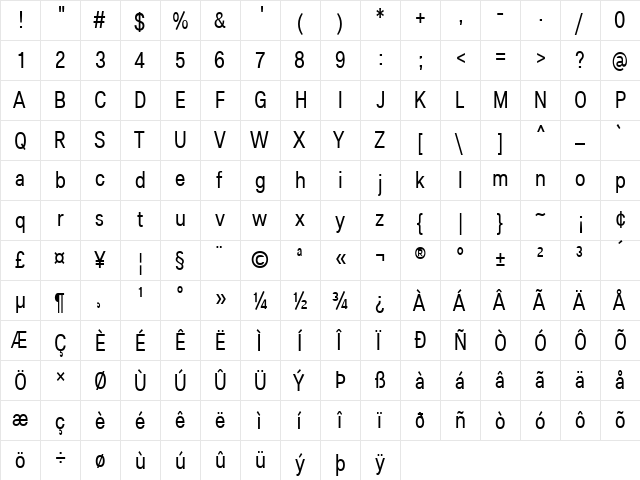
Lunchtype25 Condensed Regular
Design Context for Lunchtype25 Typeface
Lunchtype25 takes a measured approach to typography — its balanced proportions and neutral character make it a reliable workhorse for both digital and print work. Its narrow stance lets it pack a punch even in space-constrained designs.